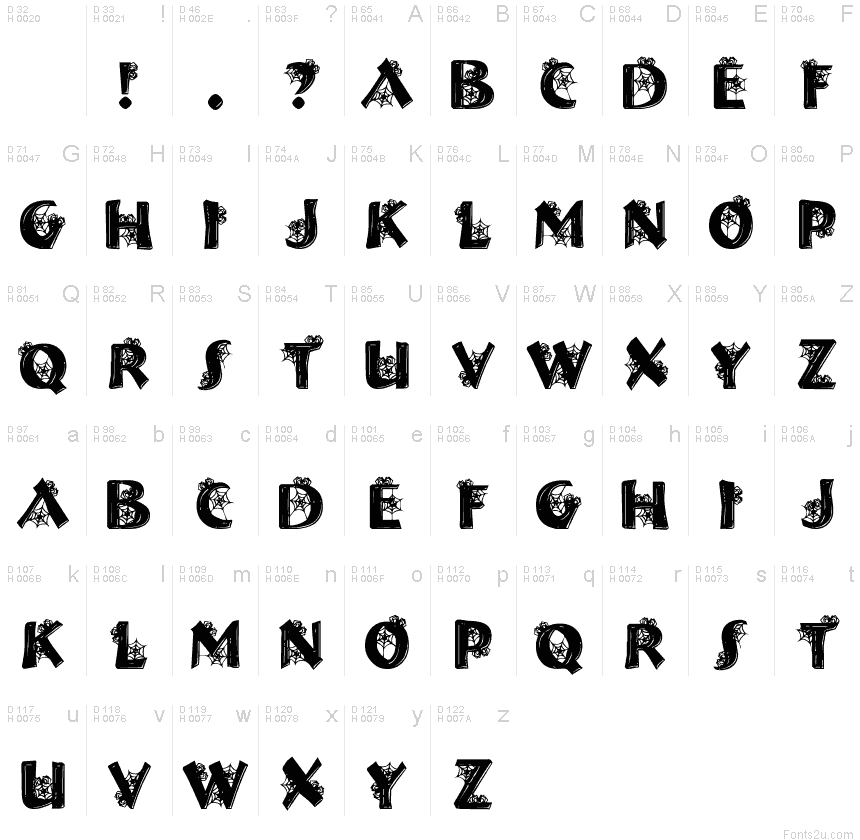
Halloween Spider
Halloween Spider font by Melle Derieppe Claude is a free decorative Halloween typeface that turns any word into a cobwebbed headline. Thick, inky letters are stuffed with silky spider webs and tiny creepers peeking from the corners, giving text a fun mix of spooky and cute. The bold shapes stay readable even with all the webby details, so your Halloween message feels theatrical without getting messy.
Using Halloween Spider, your titles snap to attention on party invitations, haunted house posters, trick-or-treat bags, social media graphics, classroom worksheets, and seasonal banners. This free font works best at larger sizes where the webs and spiders can really crawl into view. Pair it with a clean sans serif for body text and keep the bright oranges, purples, and slime greens ready to make every headline scream “Halloween.”